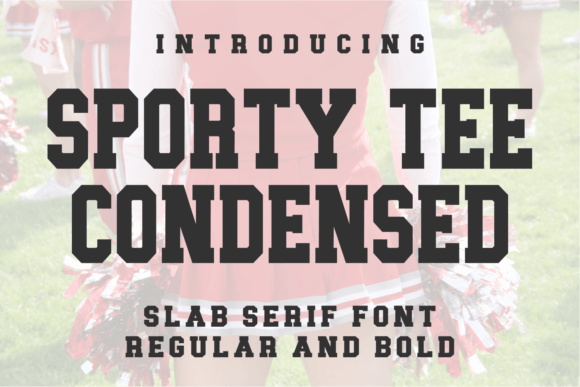
Looking for the perfect font to showcase your sport-inspired designs? Look no further than Sporty Tee Condensed Font! This tall and bold serif font is designed to add a vibrant touch to your projects. Created by SVG Cuttables, this font is specifically tailored for those in need of a Font For Jersey Number.
Sporty Tee Condensed Font offers two versions - regular and bold. Both versions exude power and strength, making them ideal for sports designs, team logos, jerseys, league promotions, and more. Whether you're creating a movie poster, a documentary, or a book cover, this font will make your project stand out.
With its eye-catching style and attention-grabbing presence, Sporty Tee Condensed Font is perfect for headlines, titles, and any project that needs a touch of energy. Its versatility allows it to be used in various creative endeavors, making it a must-have for designers and creators alike.
The font's bold and impactful nature evokes a sense of excitement and passion, effortlessly capturing the essence of sportsmanship. It's not just a font; it's a statement. Let Sporty Tee Condensed Font elevate your designs and leave a lasting impression on your audience.